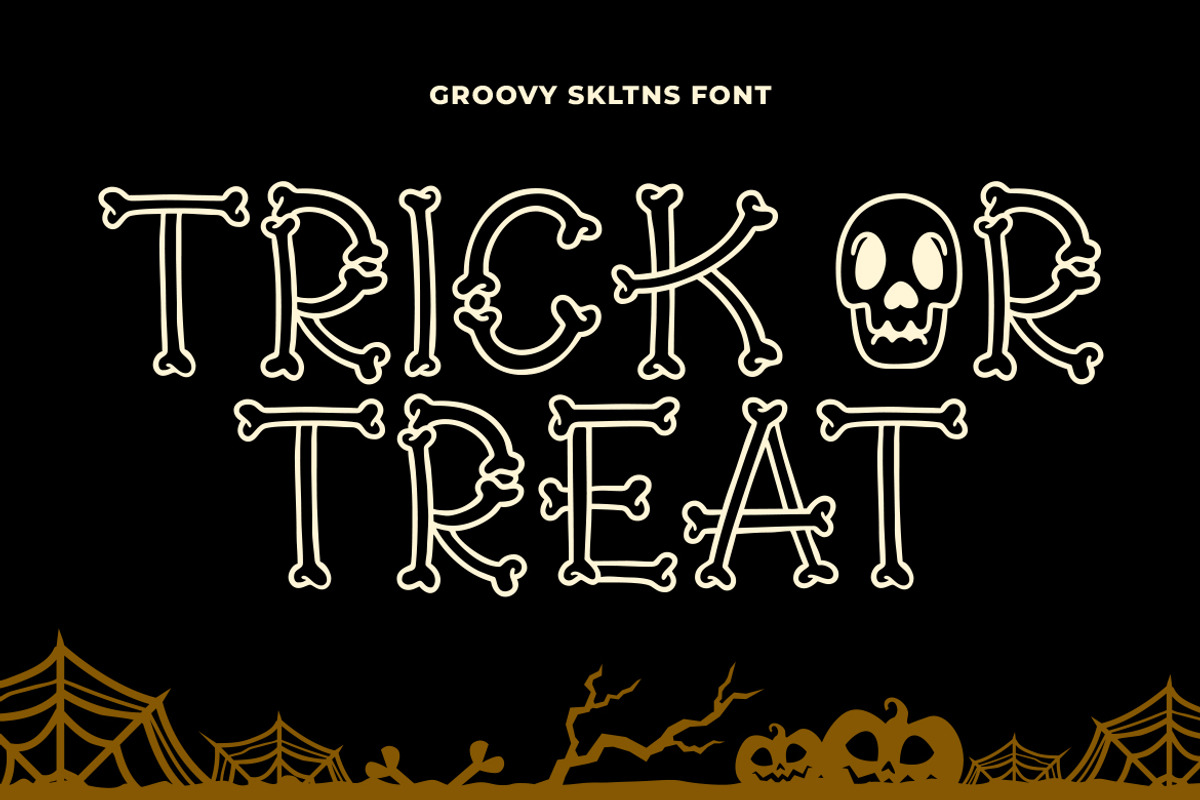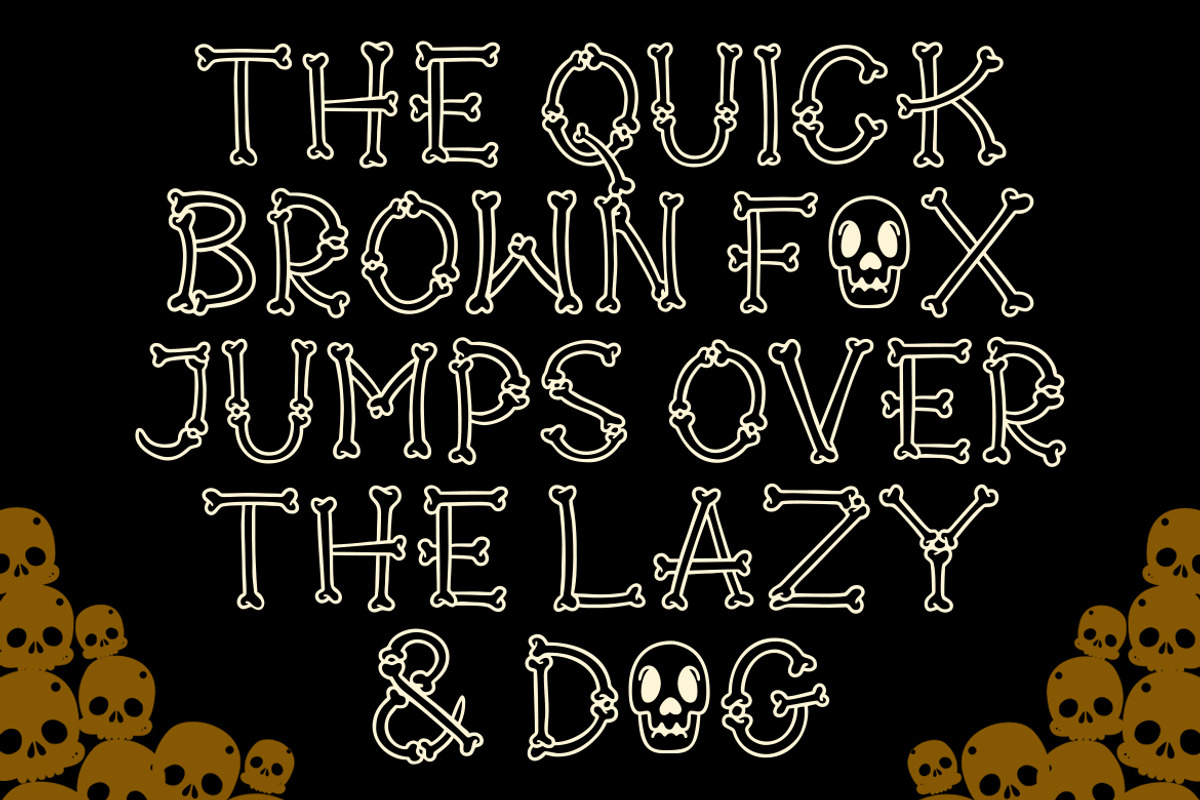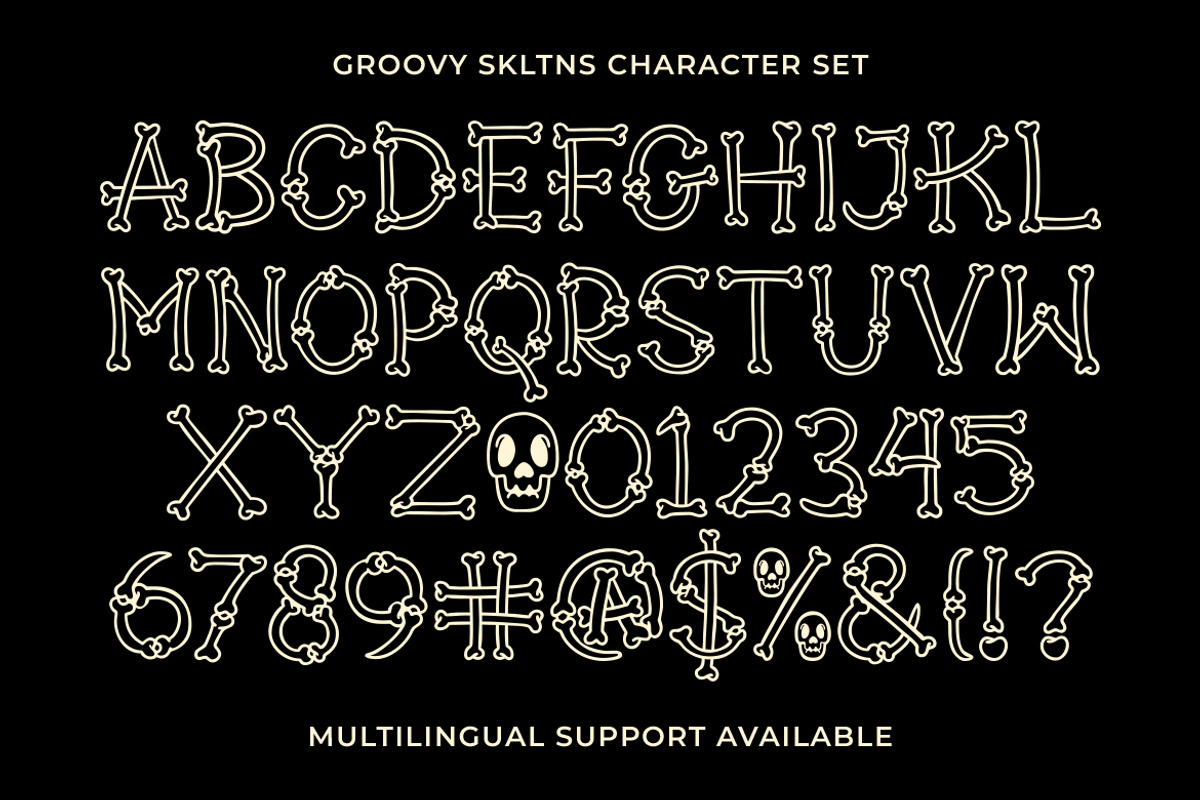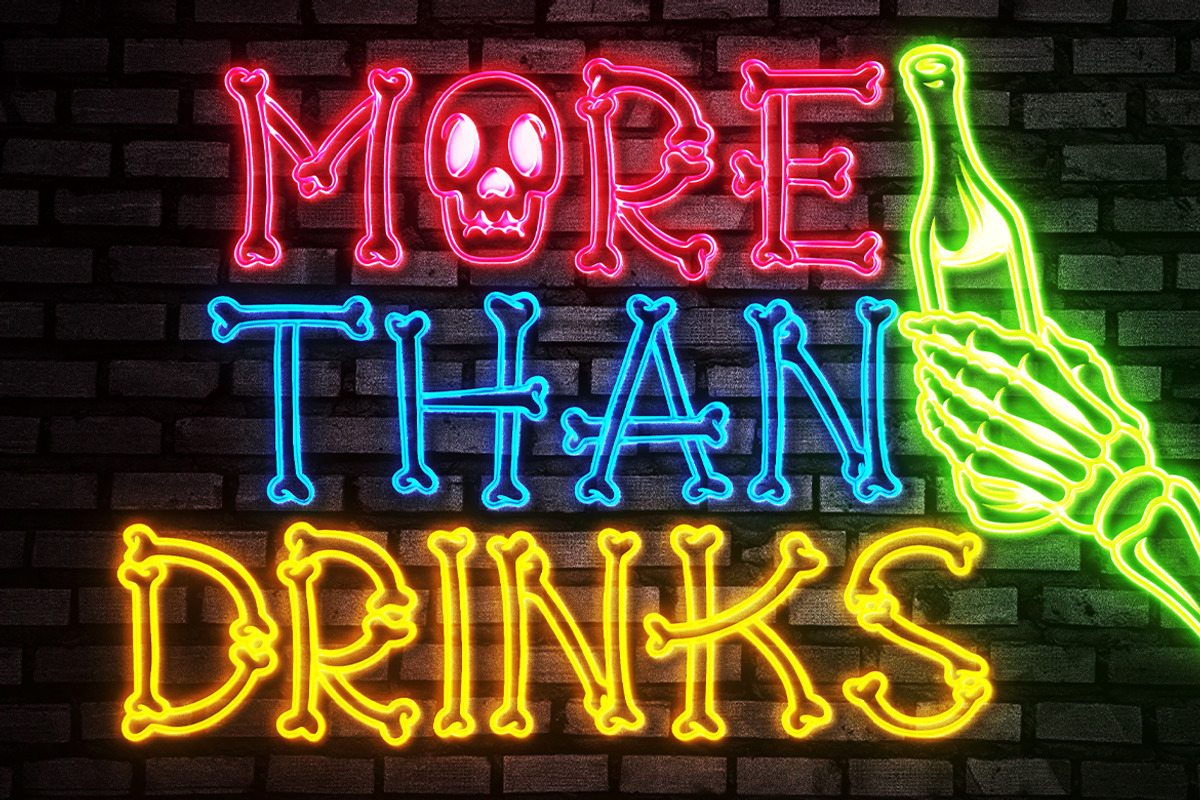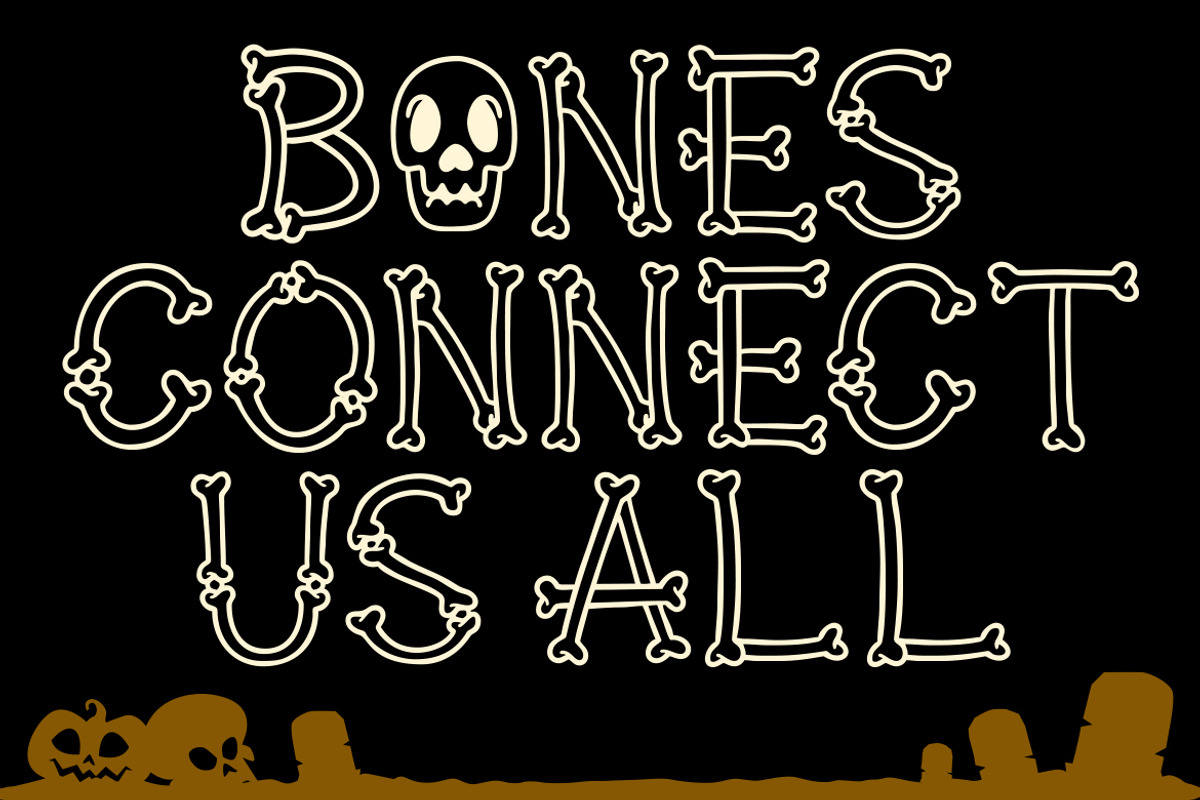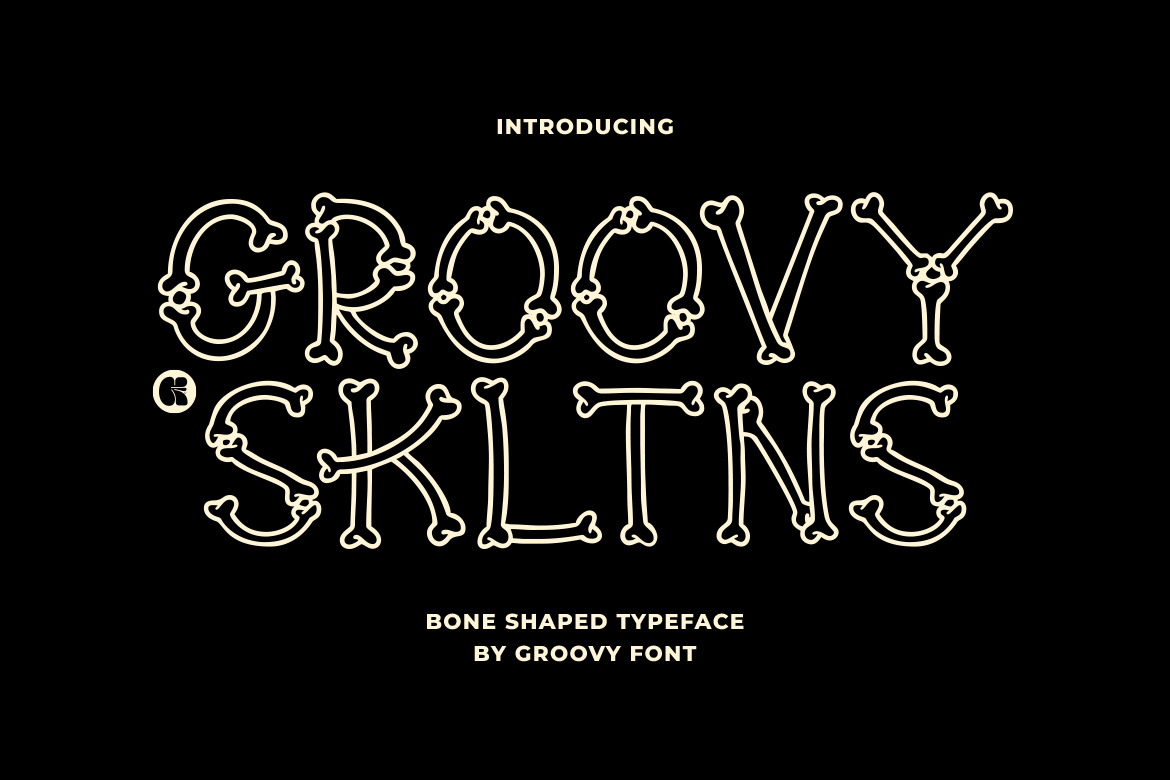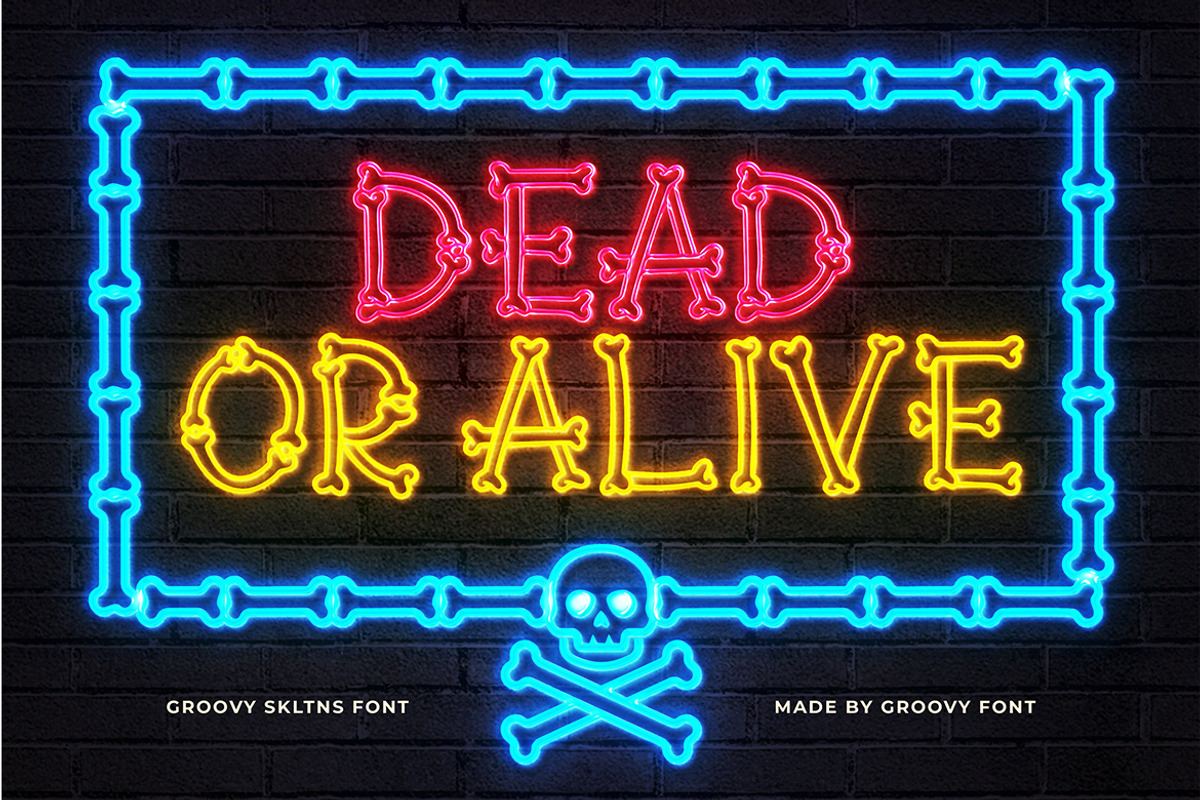
Groovy Skltns Bone Shaped Typeface
Groovy Skltns is a bone-shaped typeface that creatively combines bone structures to form each letter.
The unique design of this font gives a spooky and unique aesthetic to any text or design it is applied to, giving a unique and memorable touch to your projects.